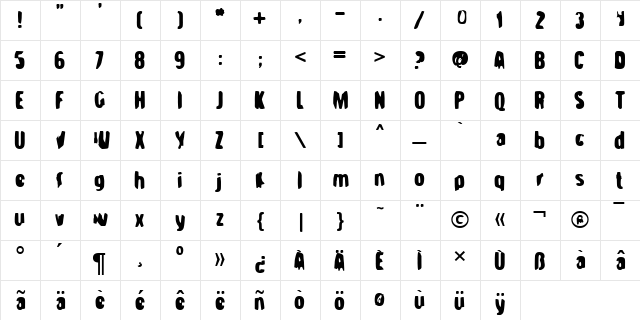
Strange Brew Regular
Design Context for Strange Brew Typeface
Strange Brew is a composed and adaptable typeface that performs quietly and consistently across a wide range of design contexts.